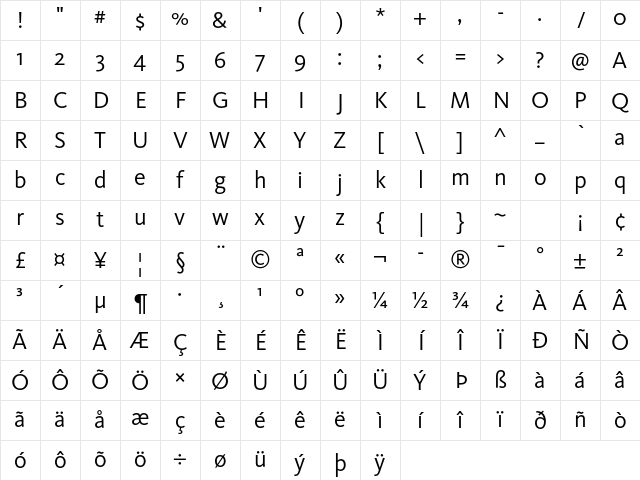
KievitOT-Regular Regular
Foundry: FSI Fonts und Software GmbH
Designer: Mike Abbink
Design Context for KievitOT-Regular
KievitOT-Regular is a composed and adaptable typeface that performs quietly and consistently across a wide range of design contexts.